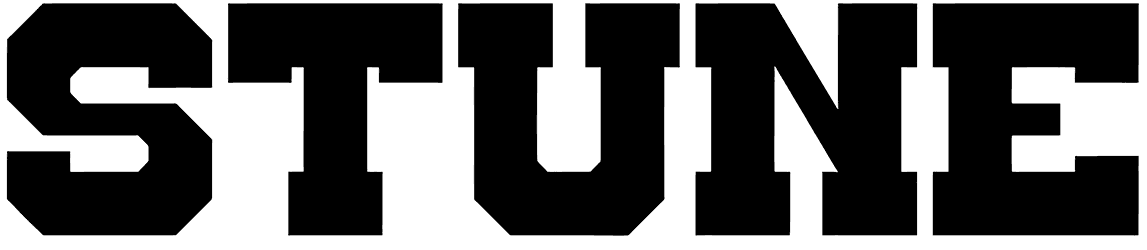
Stune Font
Wherever you think you can use a stronger tone in your typography, that’s the perfect scenario for adding Stune to your artwork. Sometimes everything looks better when you customize your words with a varsity-style font.
But first, you’ve got to make sure that your lettering needs no lowercase. Then you can go for it and bring this basketball font to any of your sports designs, like gym signs, college team game posters, or anything else you have in mind.